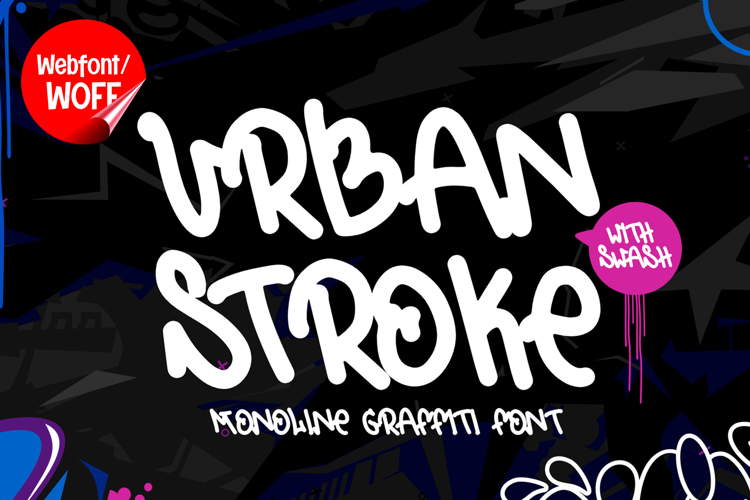
Urban Stroke | Monoline Handwritten Graffiti Webfont
Urban Stroke is a monoline handwritten graffiti webfont designed to bring authentic street culture and expressive handwritten style into modern website design. Inspired by urban tagging, freestyle marker lettering, and smooth graffiti handstyles, this font features flowing strokes and balanced line consistency that create a clean yet energetic visual identity. It is an excellent choice for projects that aim to combine creativity, personality, and modern urban aesthetics.
Urban Stroke includes a complete set of uppercase characters designed with monoline handwritten graffiti forms. The letterforms feature smooth curves and natural flow, creating a stylish and authentic hand-drawn appearance. The consistent line weight gives the font a clean structure while preserving the expressive energy of graffiti tags. These characteristics make it ideal for headlines, banners, hero sections, and featured content where an urban and creative look is needed.
In addition to letters, the font includes numbers and punctuation, allowing flexible usage across various parts of a website. It works well for branding elements, promotional campaigns, lifestyle blogs, streetwear websites, and music platforms. Each character maintains a consistent monoline graffiti style, ensuring a cohesive and unified visual identity throughout the design.
With multilingual support, Urban Stroke includes a wide range of accented characters, making it suitable for international websites and global audiences. This ensures that content remains clear and visually consistent across different languages while maintaining the handwritten urban aesthetic.
The monoline handwritten graffiti style of Urban Stroke makes it especially suitable for creative portfolios, urban-themed websites, youth-oriented branding, and digital campaigns. Its flowing and expressive design adds authenticity and strong street-style character, helping websites stand out in visually competitive environments. The handwritten structure creates a dynamic and modern visual atmosphere.
Despite its expressive and handwritten appearance, Urban Stroke is designed with readability in mind. The spacing and proportions are carefully balanced to ensure clarity, particularly in display sizes. This makes it effective for impactful headings and short content elements where both style and usability are important.
Urban Stroke is a webfont that combines graffiti aesthetics with smooth monoline structure and modern digital performance. Its flowing strokes, handwritten character, and urban influence create a distinctive typographic presence that enhances website design. For projects that require a stylish, authentic, and visually engaging graffiti font, Urban Stroke offers a versatile and creative solution.